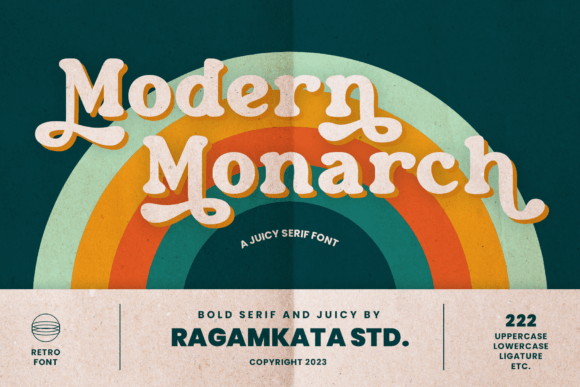
Journey through time with Modern Monarch, a retro-inspired serif font that captures the essence of classic aesthetics. Each letter is a meticulously crafted masterpiece, a testament to the timeless beauty of the past. With its delicate curves and refined strokes, Modern Monarch exudes a sense of nostalgia and sophistication that will elevate your designs to new heights.
Indulge in the charm of the vintage era with Modern Monarch, a font that evokes a sense of warmth and familiarity. Whether you're creating posters, logos, packaging, or promotional materials, this font will transport your audience to a time of elegance and simplicity. Its vintage appeal adds a touch of authenticity and depth to your projects, making them stand out from the ordinary.
Unleash your creativity with Modern Monarch, the perfect font for capturing the timeless spirit of your designs. Let your imagination soar as you explore the limitless possibilities it offers. From eye-catching posters to sophisticated logos, this font will become your trusted companion in crafting designs that resonate with your audience. Embrace the nostalgia and distinctive charm of Modern Monarch, and watch your projects come alive with a touch of retro magic.
Immerse yourself in the world of Modern Monarch, a font that tells a story with every letter. Its retro style invites you to embark on a journey through time, where nostalgia and elegance converge. With its versatility, this font is the ideal choice for a wide range of projects, allowing you to express your creativity in countless ways.
Don't settle for ordinary fonts; elevate your designs with Modern Monarch, the perfect fusion of retro charm and contemporary elegance. Experience the difference, and witness how this font breathes new life into your projects.